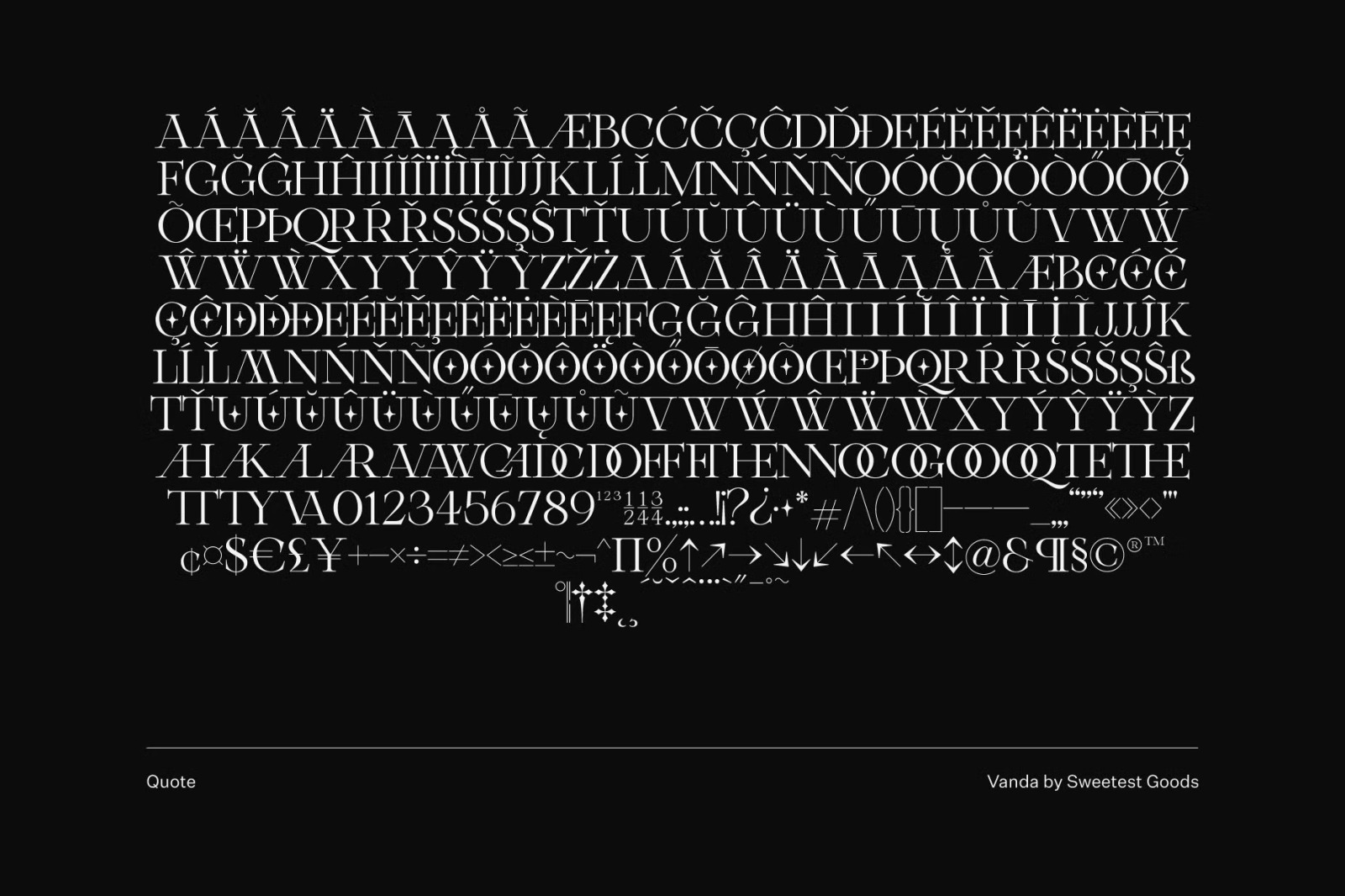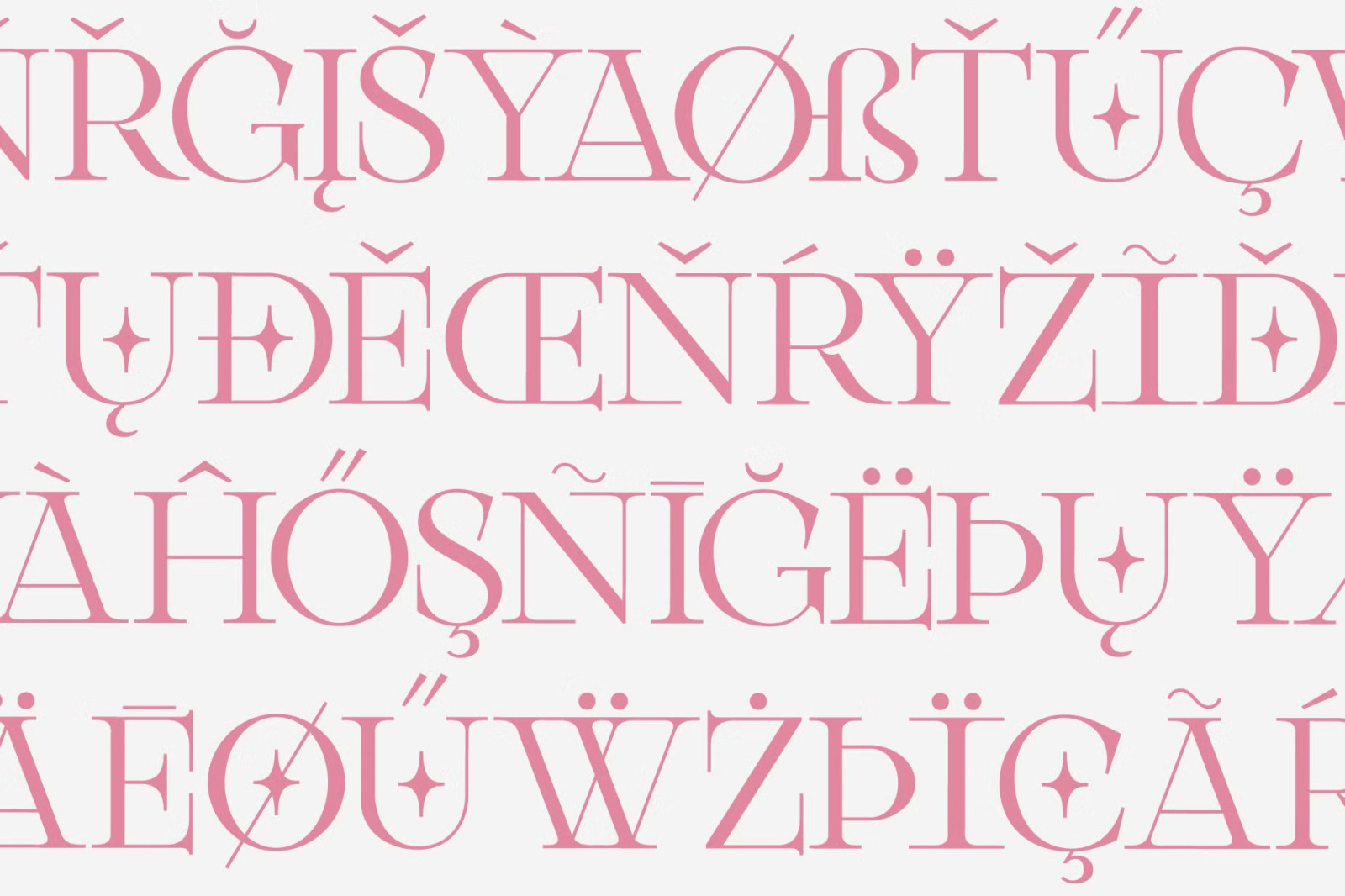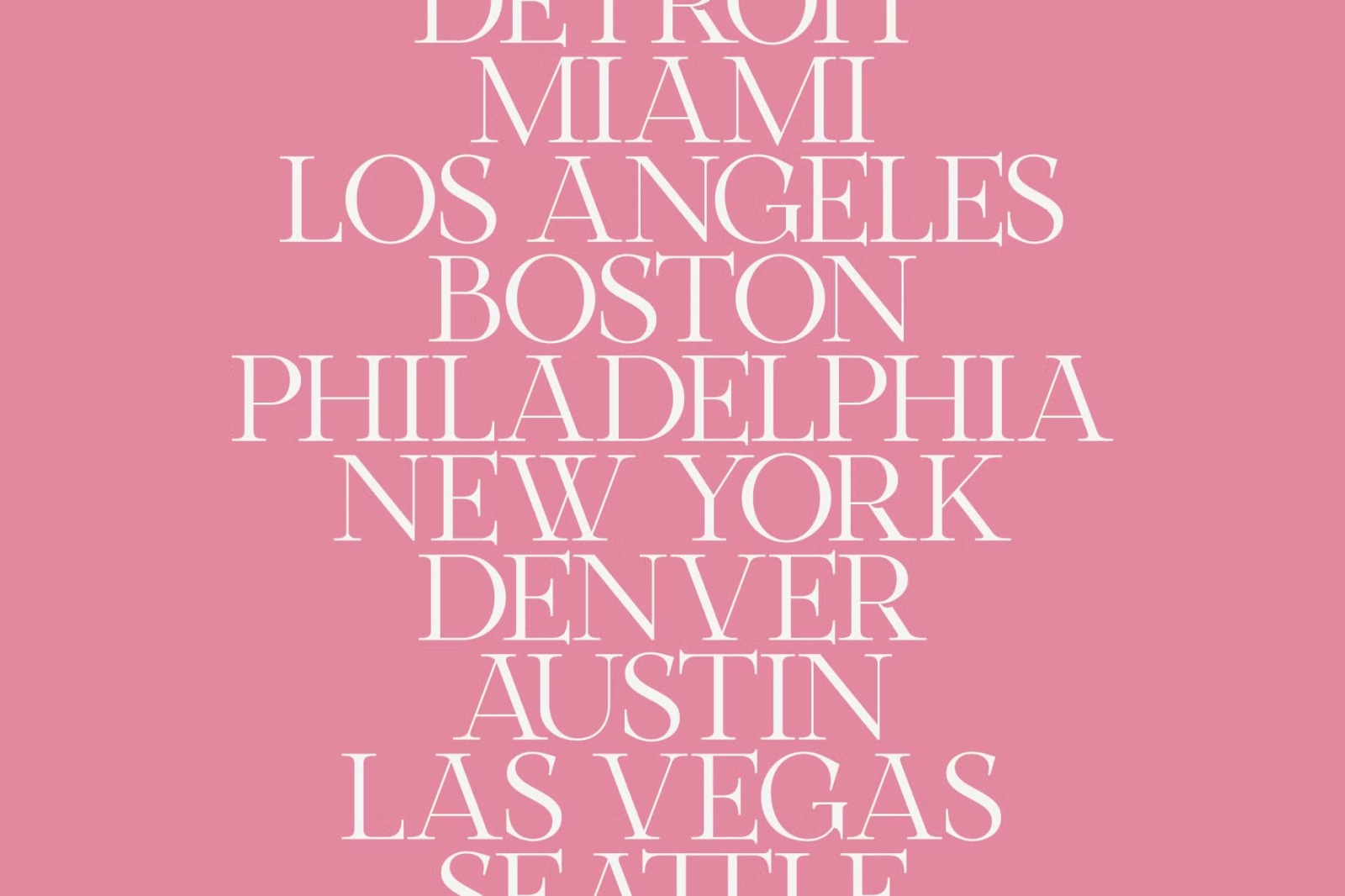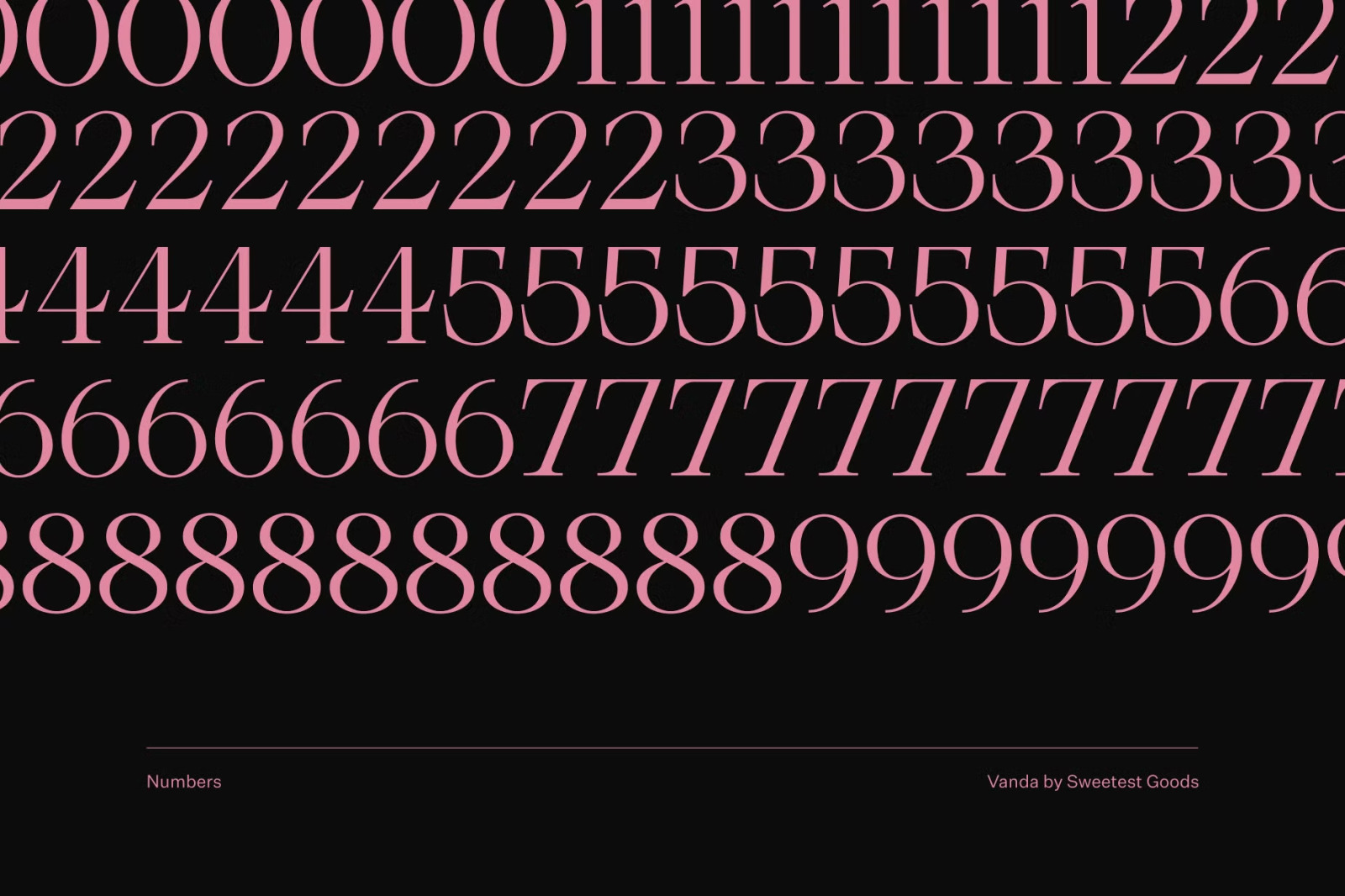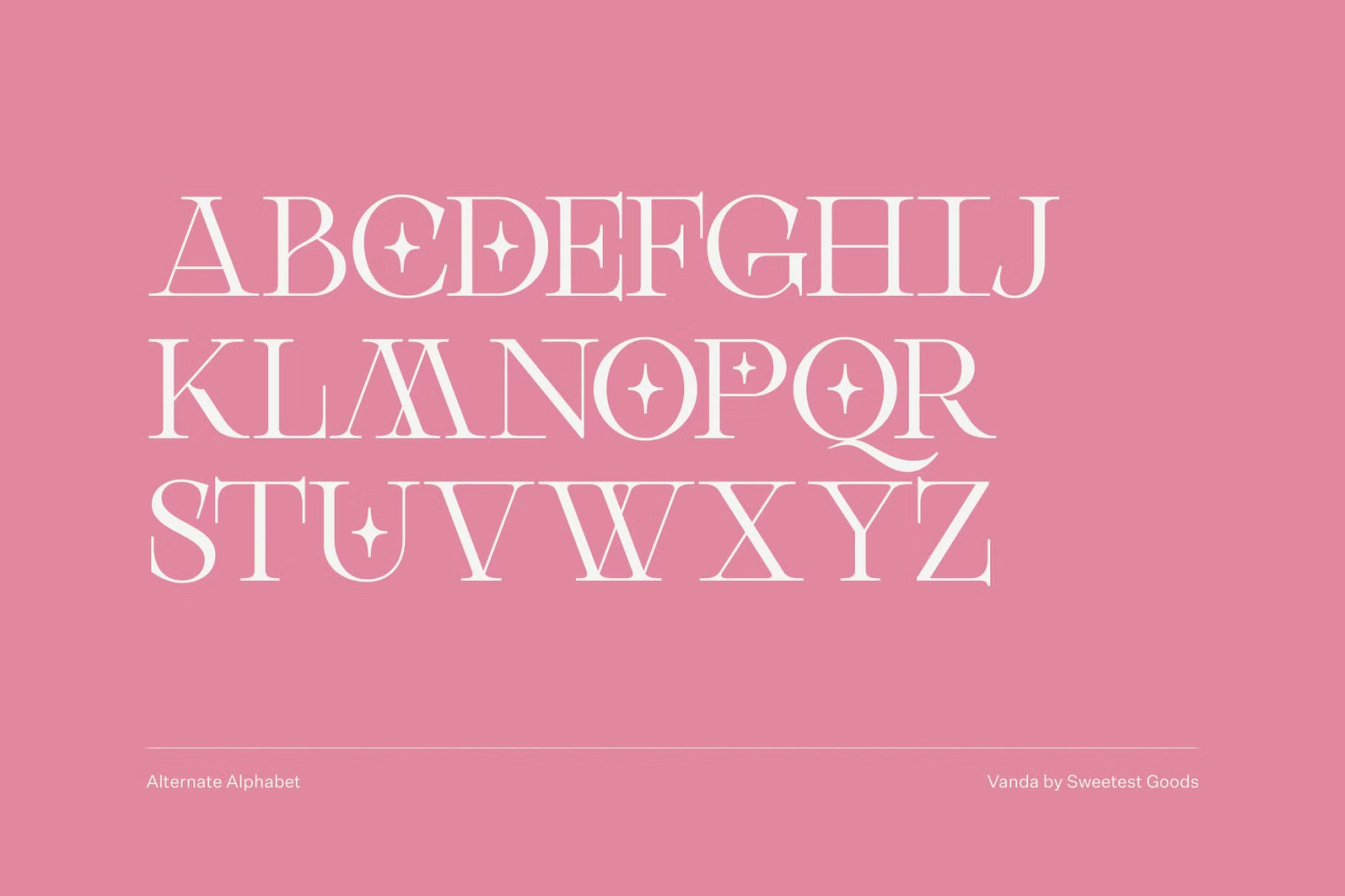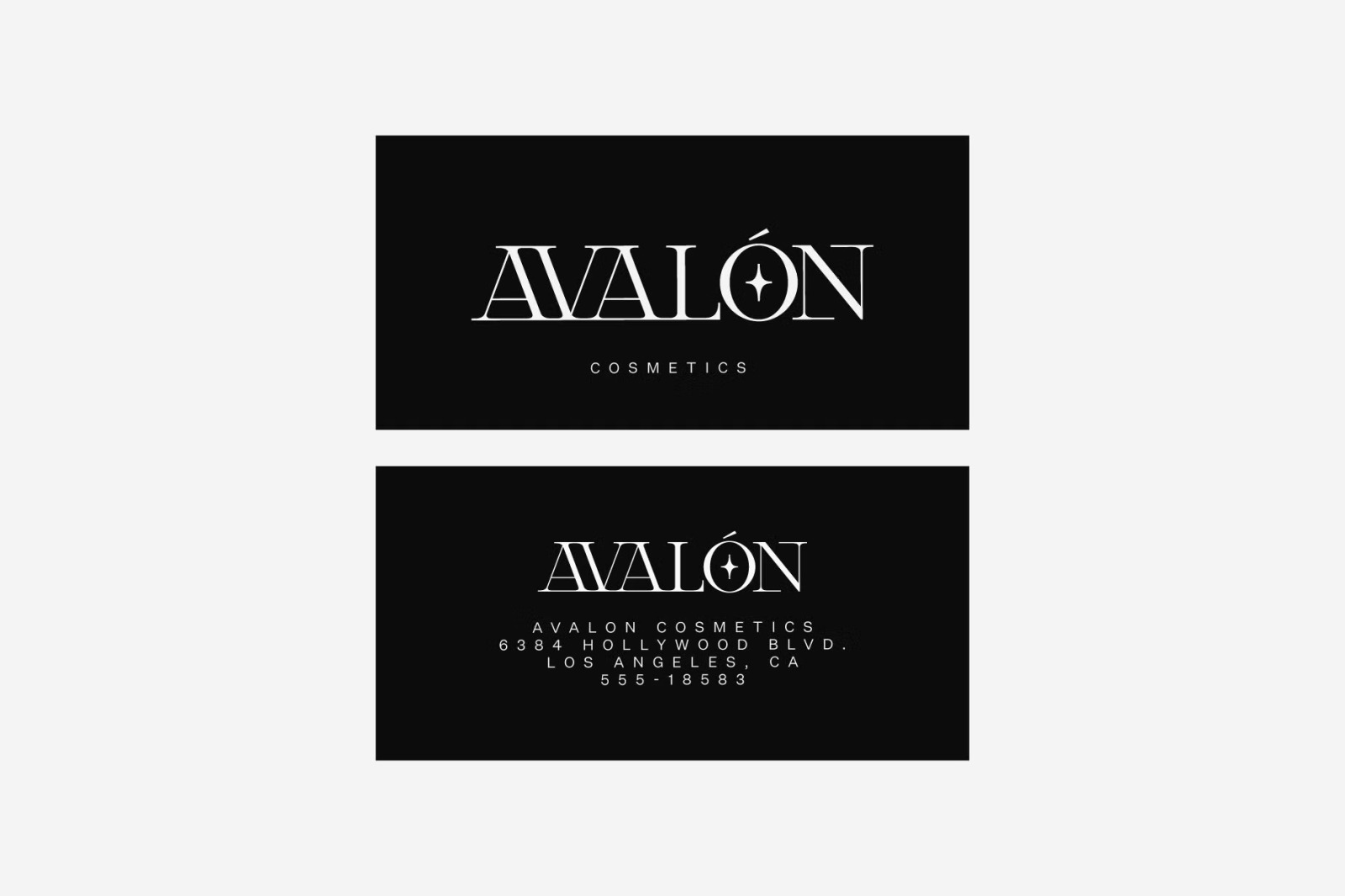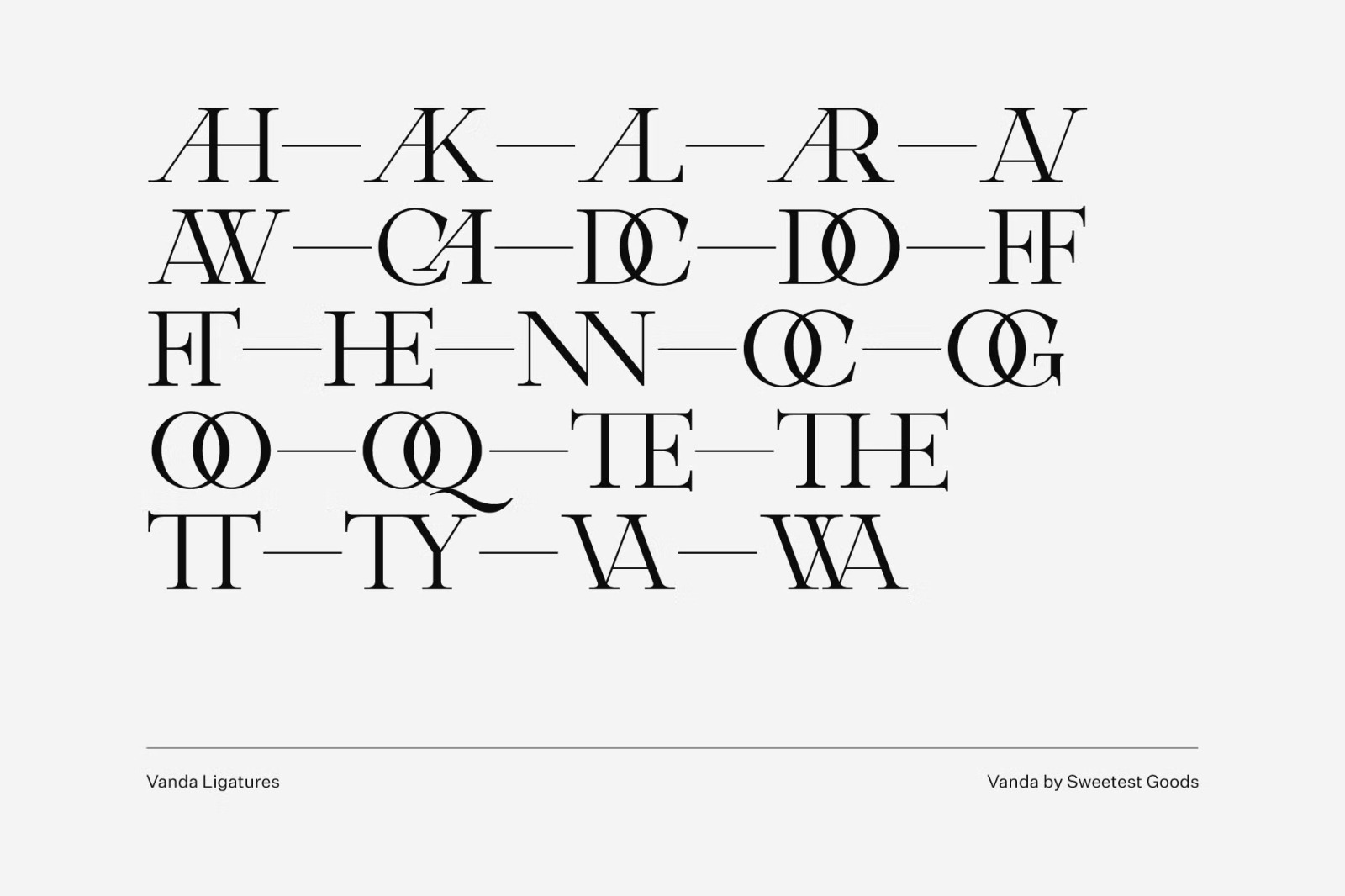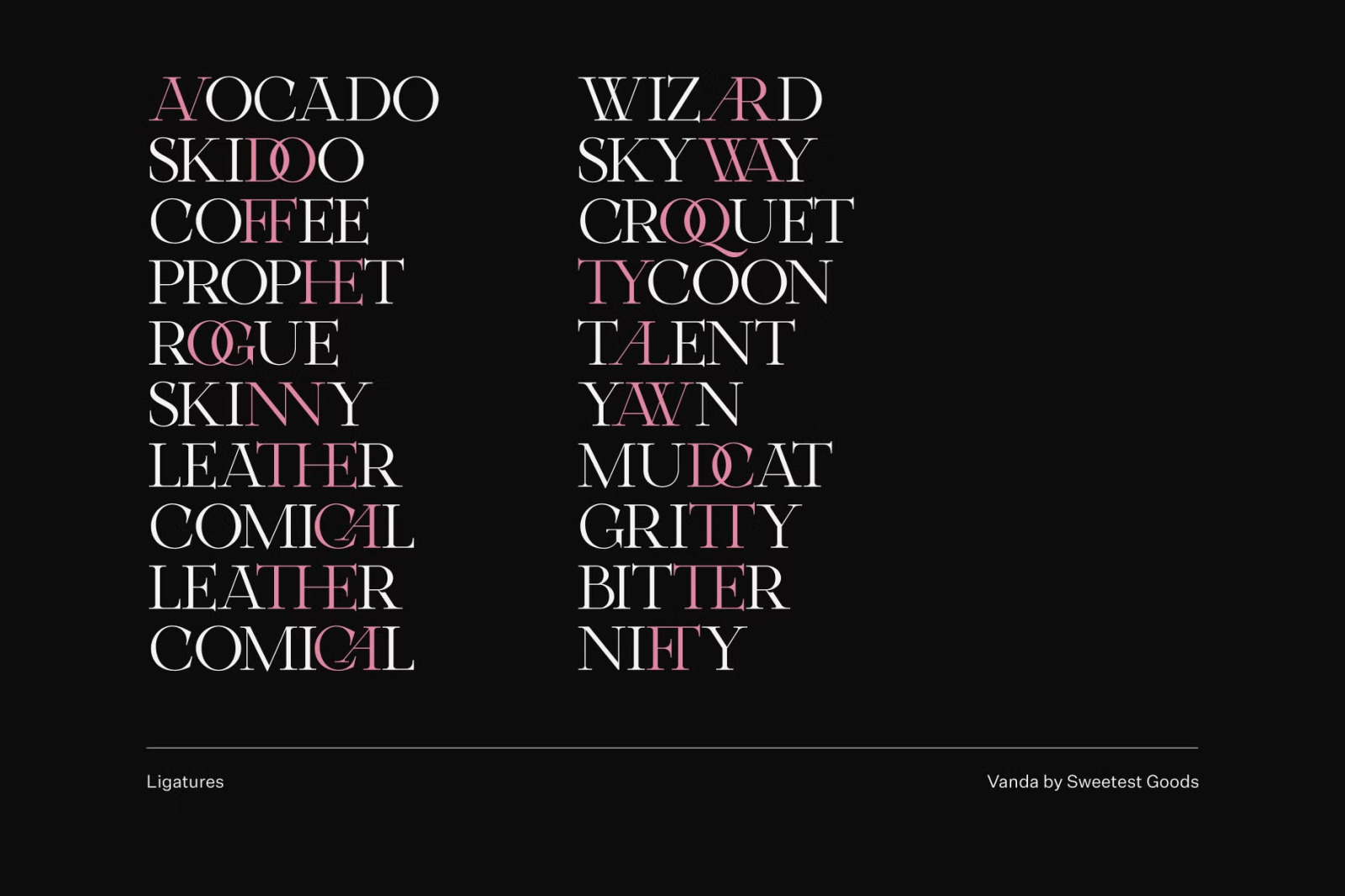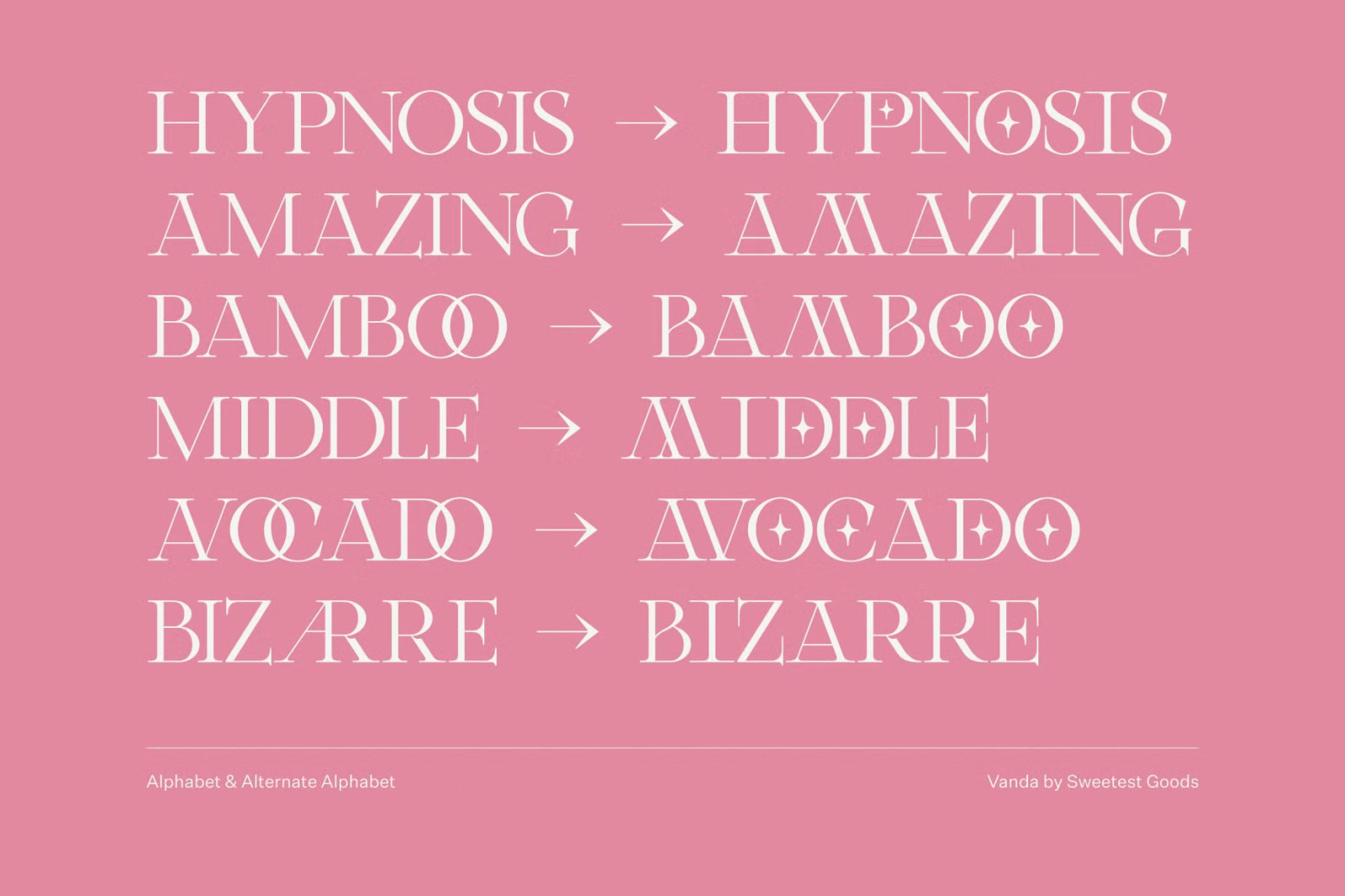
Vanda - Display Font
Vanda – A cool, chic and unique display font with starry alternate letters, ligatures, decorative elements and multilingual support.
Vanda is a very versatile font that works great in all kinds of projects, from unique branding to bold magazine design, to packaging design, and so much more. This all-caps typeface features gorgeous alternate glyphs with decorative elements and twenty-three unique ligatures. Check out the preview images to explore the two alphabets – standard serif and alternate glyphs. Use alternate letters with stars or decorative elements like arrows to make your design stand out.
FEATURES
Uppercase alphabet
Alternate Uppercase alphabet
23 ligatures
Big range of numbers, symbols & punctuation
Comprehensive language support including: Albanian, Basque, Catalan, Croatian, Danish, Dutch, English, Finnish, French, German, Hawaiian, Icelandic, Indonesian, Irish, Italian, Latvian, Lithuanian, Norwegian, Polish, Portuguese, Romanian, Slovenian, Spanish, Swedish, Turkish, Welsh & more
For the pros: individual kerning & extensive range of characters